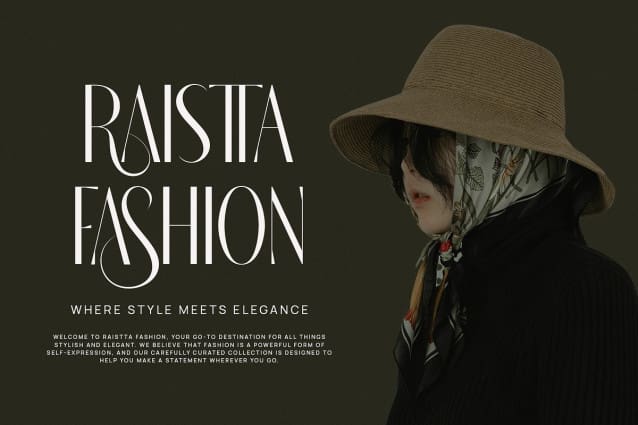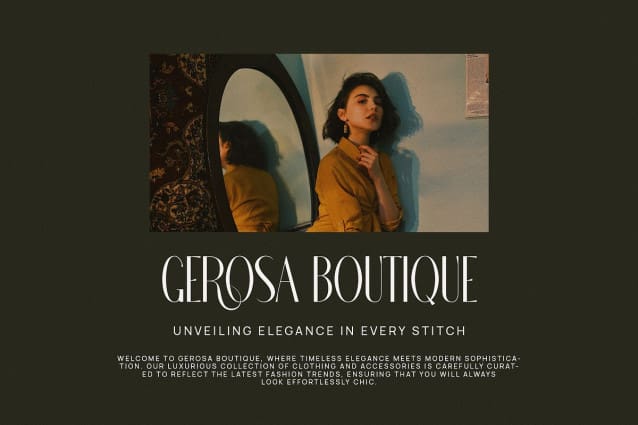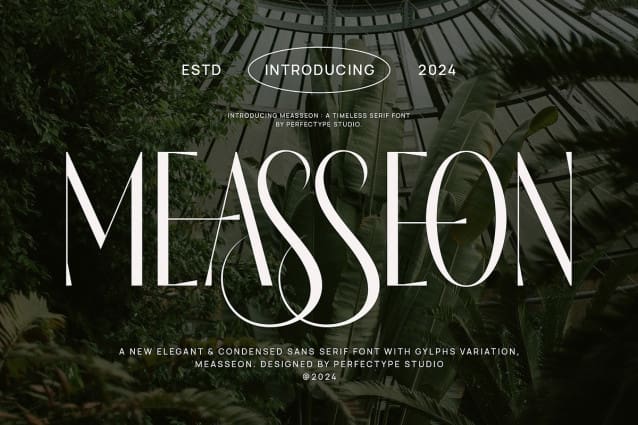
Measseon Font
Measseon Font by Perfectype 13,774 downloads
Measseon Font
Measseon Font is a unique and very elegant font for branding and logo designs Elegant serif typeface combined with a classy and modern style. This type of font is very suitable for your various needs such as branding projects, logos, wedding designs, social media posts, advertisements, product packaging, product designs, labels, photography, watermarks, invitations, stationery, and any project, created with high level of readability. you will not be disappointed if you buy this font!!